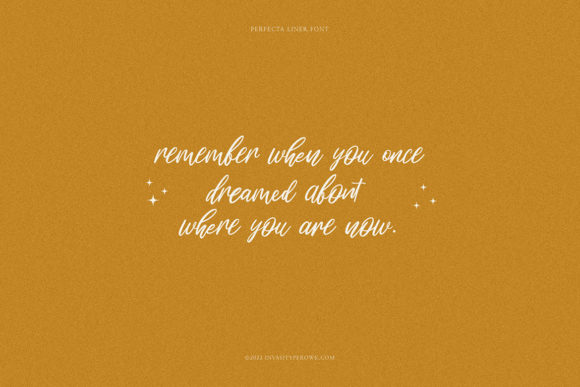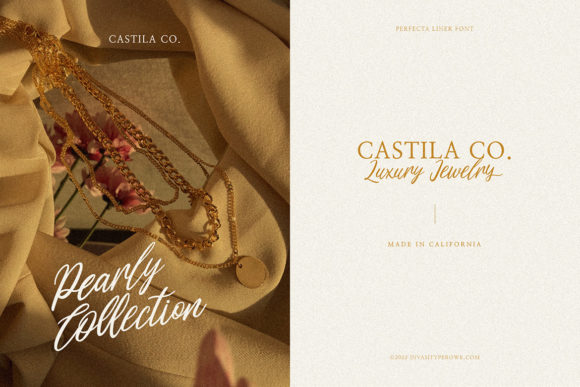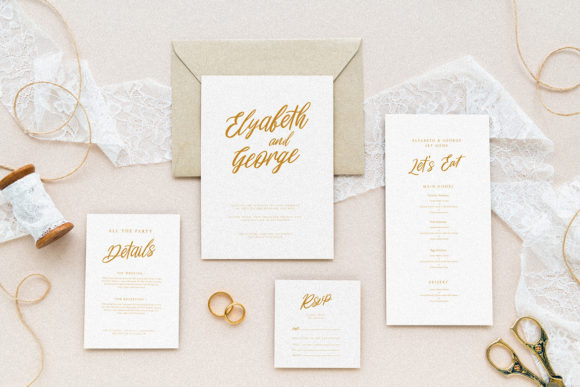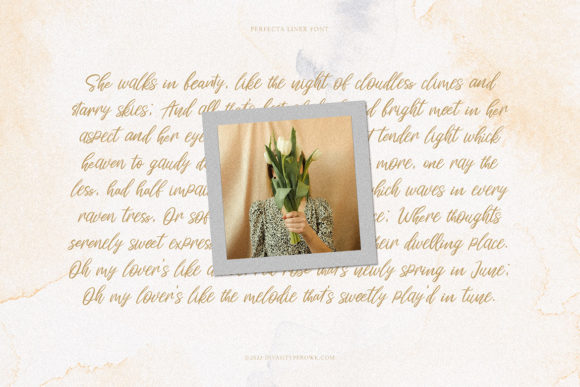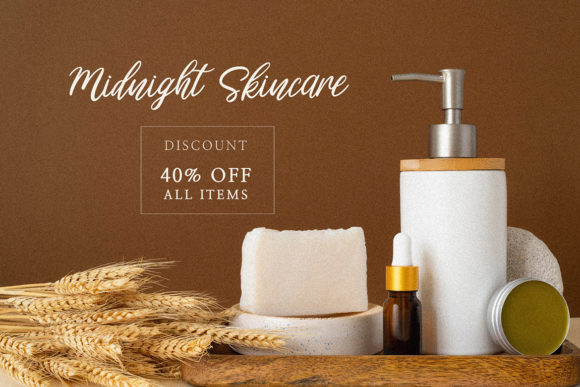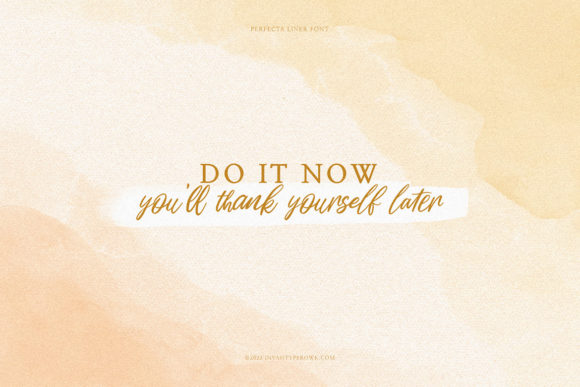
Introduction to Perfecta Liner Font Font
Fonts play a crucial role in design, and the Perfecta Liner Font font is a typeface that brings both character and versatility to any project. Whether you’re working on a branding project, a website, or a print design, the Perfecta Liner Font font offers a unique style that can elevate your work.
Perfecta Liner is a fashionable handwritten font.
It is perfect for branding, signatures, wedding invitations, promotions, product packaging, and more This font is PUA encoded which means you can access all of the glyphs and swashes with ease.
Key Features of Perfecta Liner Font Font
Why Choose Perfecta Liner Font Font?
The Perfecta Liner Font font is more than just a typeface – it’s a design tool that helps you communicate your message with style and clarity. Its unique character set and versatile design make it suitable for a wide range of applications, from elegant invitations to bold headlines.
With its carefully crafted letterforms and balanced proportions, the Perfecta Liner Font font ensures readability and visual appeal across all mediums.
What makes Perfecta Liner Font font special?
The Perfecta Liner Font font stands out with its unique design, exceptional readability, and versatility across various design applications.